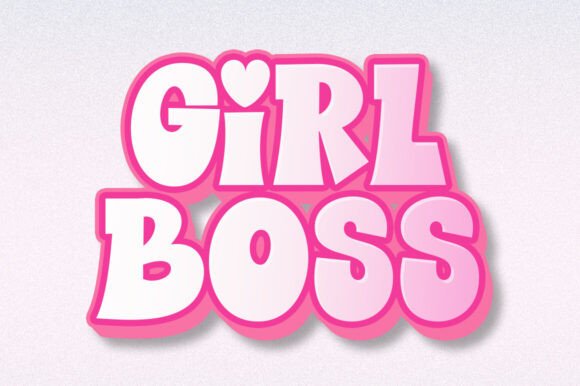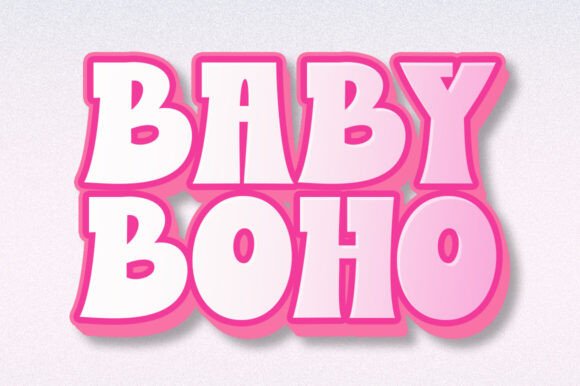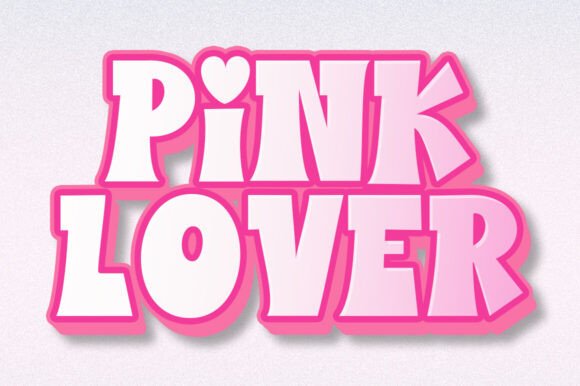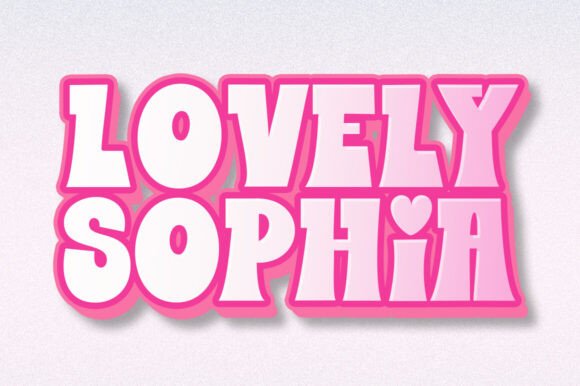
Introduction to Girly Boho Font
Have you ever stared at a blank canvas, feeling stuck and unsure of how to bring your creative vision to life? For many designers, finding the perfect font can be the spark that sets their imagination ablaze. That’s where the enchanting Girly Boho Font comes in – a delightful addition to any design project.
With its playful charm and whimsical flair, the Girly Boho Font is the perfect resource for designers seeking a high-quality font that adds a touch of magic to their creative project. Whether you’re working on a greeting card, t-shirt print, or social media campaign, this font is sure to elevate your design and leave a lasting impression. And the best part? It’s available for free download with a transparent background, making it easy to incorporate into your design.
By incorporating the Girly Boho Font into your design, you’ll not only add a dash of personality but also give your project a unique touch that sets it apart from the rest. So why settle for a generic font when you can have a font that tells a story and adds character to your design?
Key Features of Girly Boho Font
- Unique, hand-drawn design with a touch of elegance and femininity, making it perfect for creative projects.
- Perfect for adding a bohemian touch to wedding invitations, greeting cards, and other creative projects.
- Designed to be highly legible, with clear and smooth lines, making it suitable for both digital and print applications.
Honest Review: Girly Boho Font
I recently stumbled upon the Girly Boho Font and was excited to give it a try for my latest design project. As a designer, I’m always on the lookout for high-quality design resources that can help elevate my creative work.
Here’s what I think of the Girly Boho Font:
- ✨ Unique and stylish design: The font has a distinctive bohemian flair that sets it apart from more traditional fonts.
- ✨ Wide range of applications: I found the font to be versatile enough to use in various creative projects, from blog posts to social media graphics.
- ✨ High-quality design: The font is well-crafted and looks great even at larger sizes.
- ⚠️ Limited character set: The font only includes a limited set of characters, which may not be suitable for more complex projects.
Overall, I’m pleased with the Girly Boho Font, but I would have liked to see a more comprehensive character set and the option for a transparent background. Despite these limitations, I would still recommend this font for designers looking for a unique and stylish design resource.
To get the most out of the Girly Boho Font, use it in combination with other design elements, such as graphics and colors, to create a cohesive look. Experiment with different font sizes and styles to add visual interest to your design.